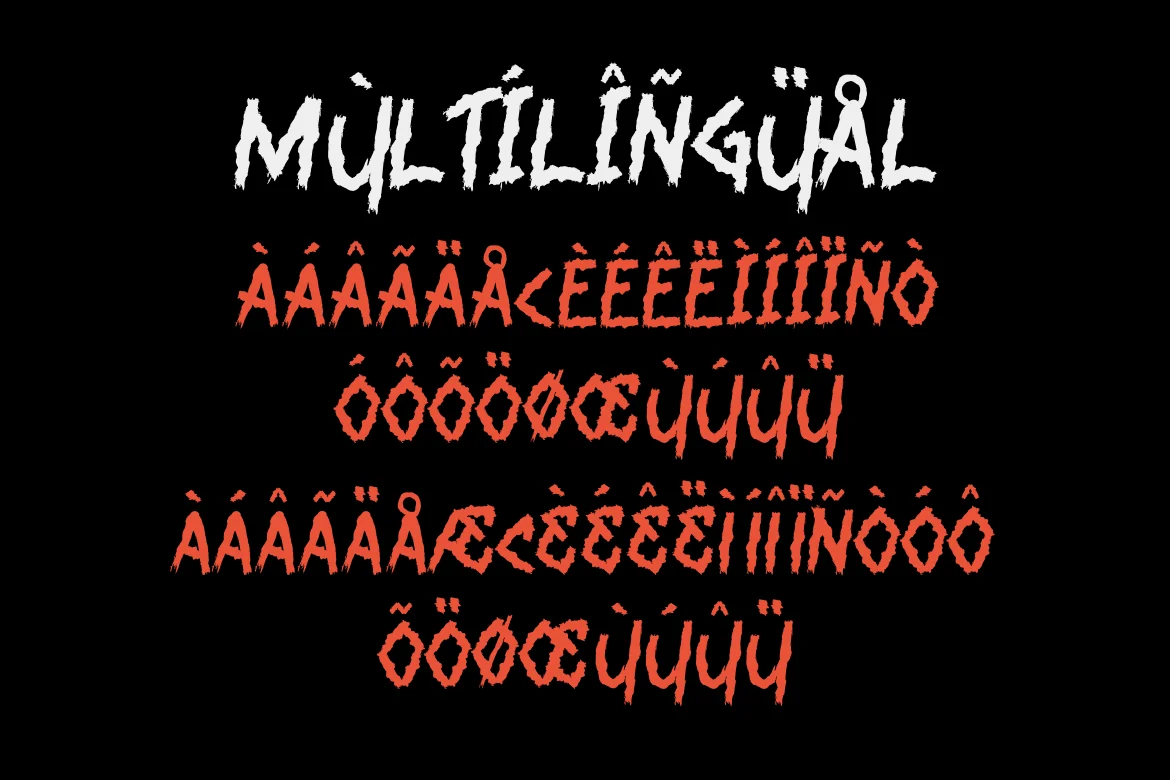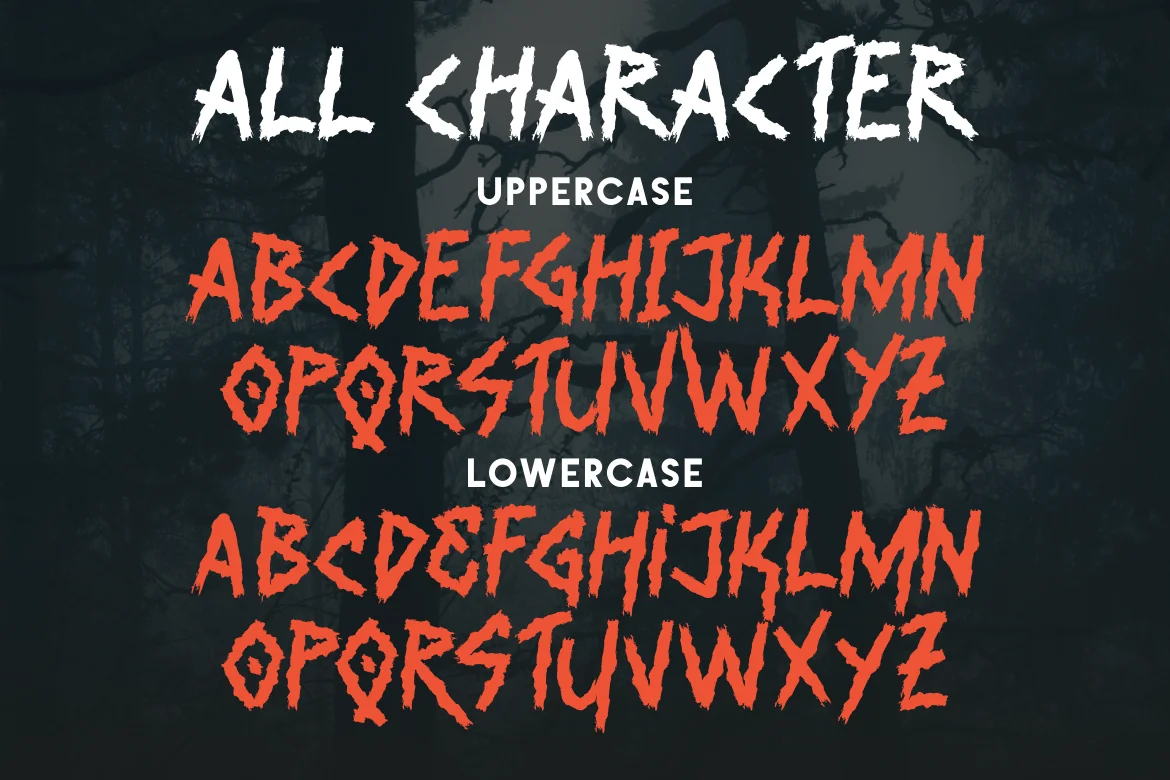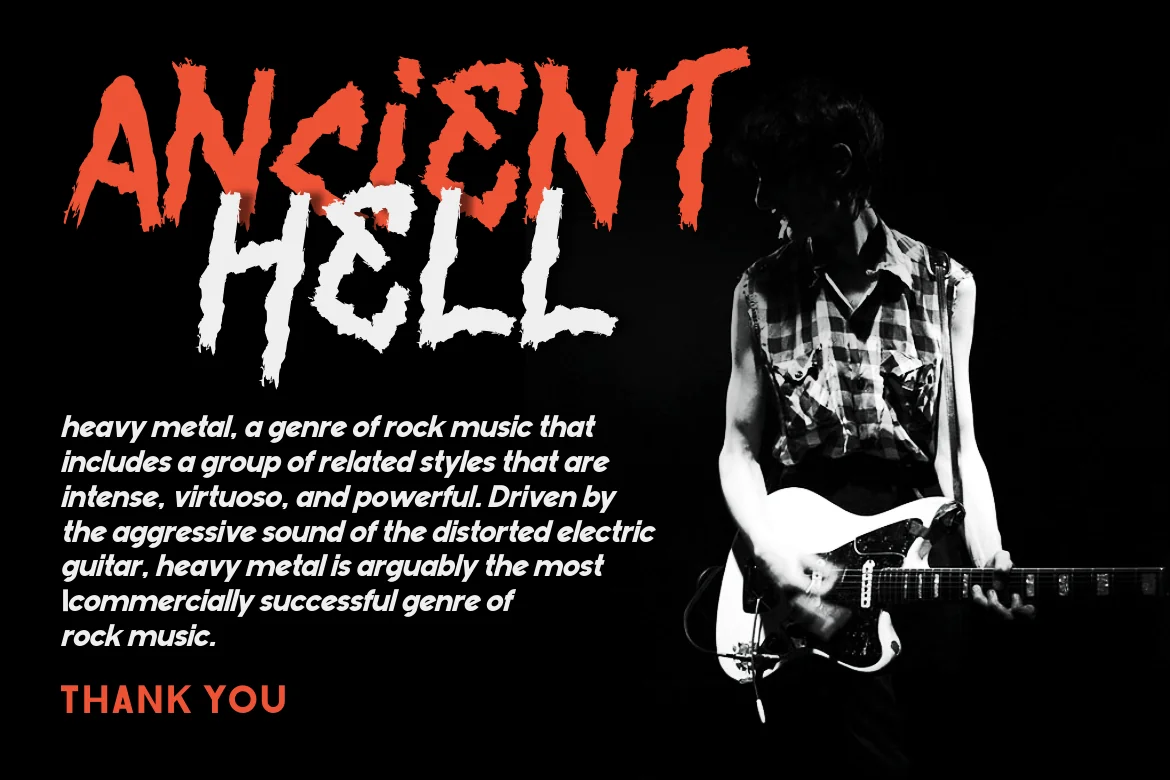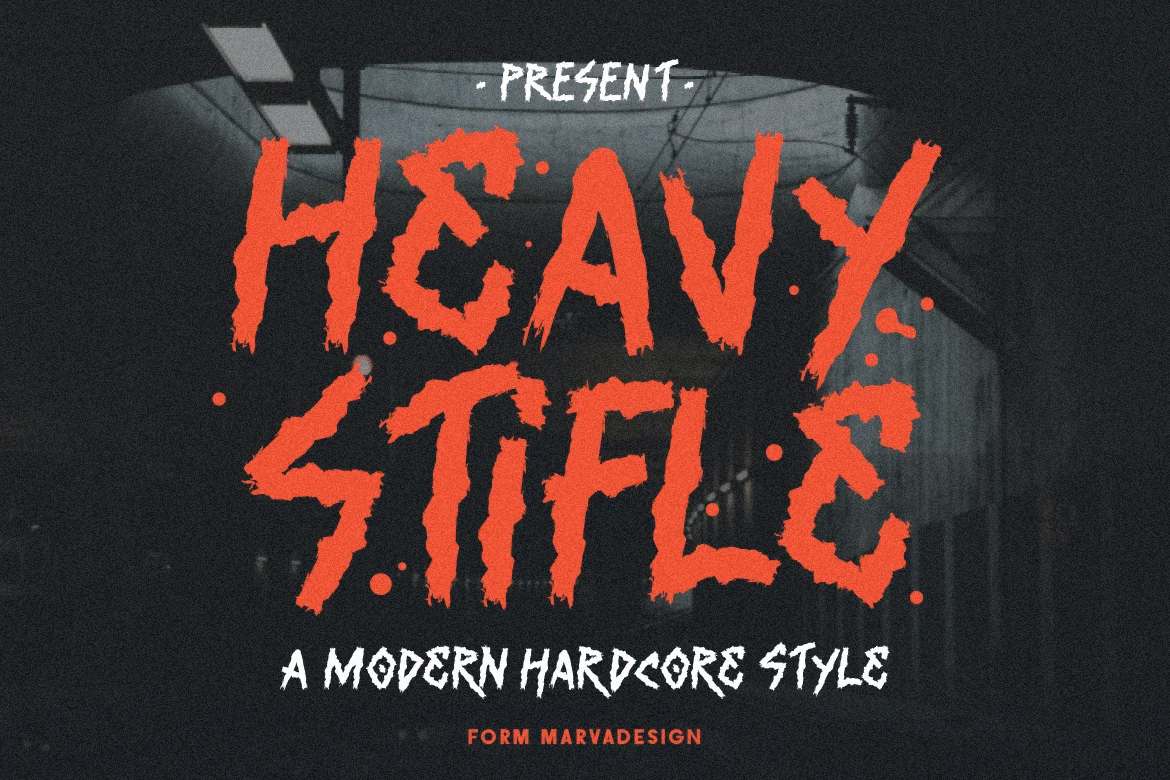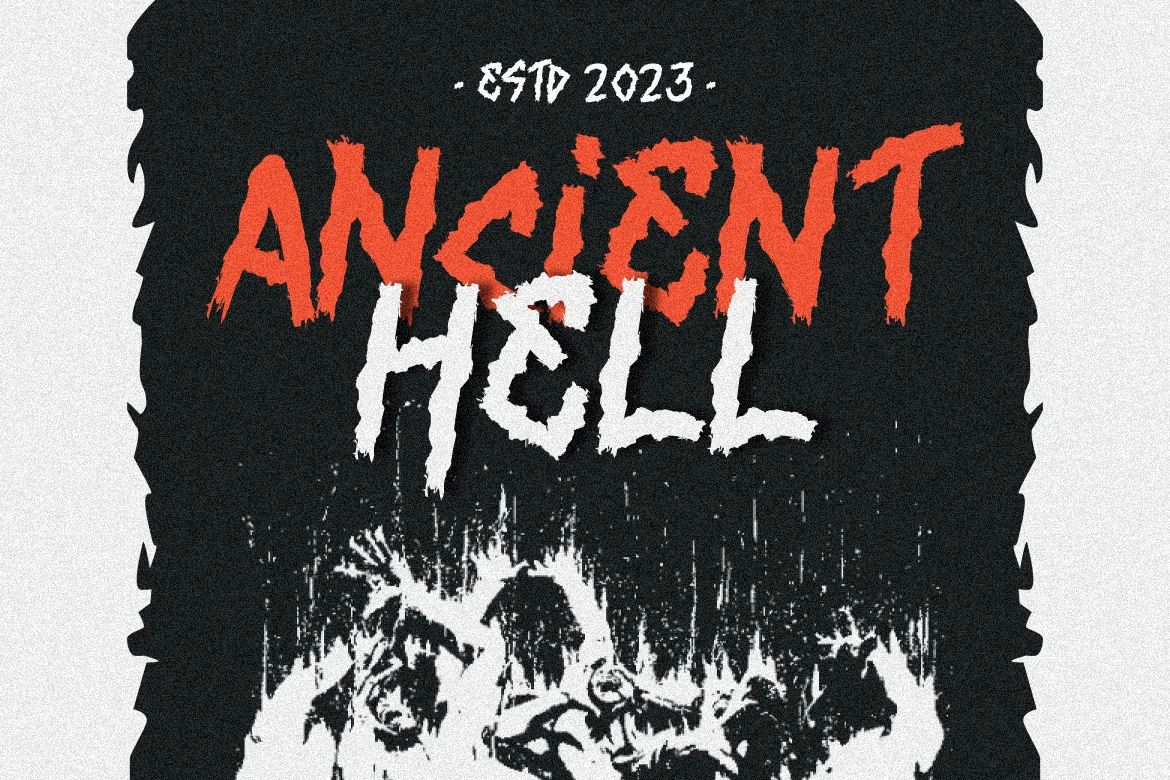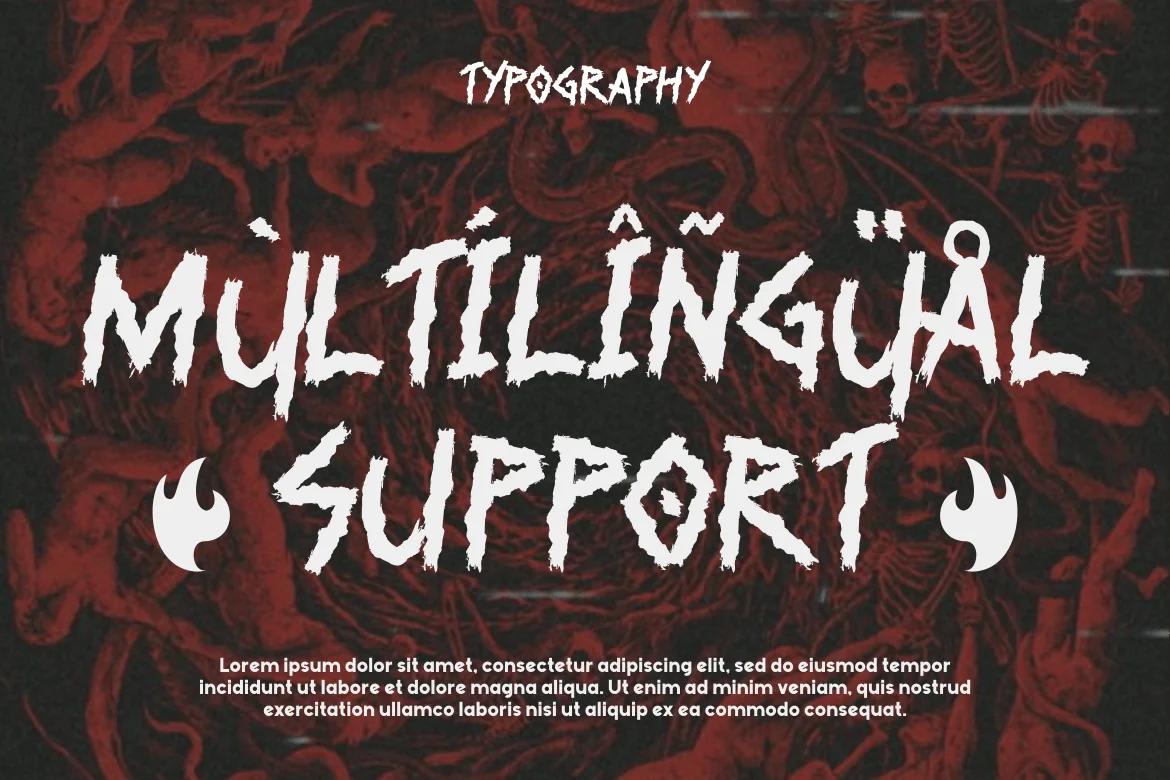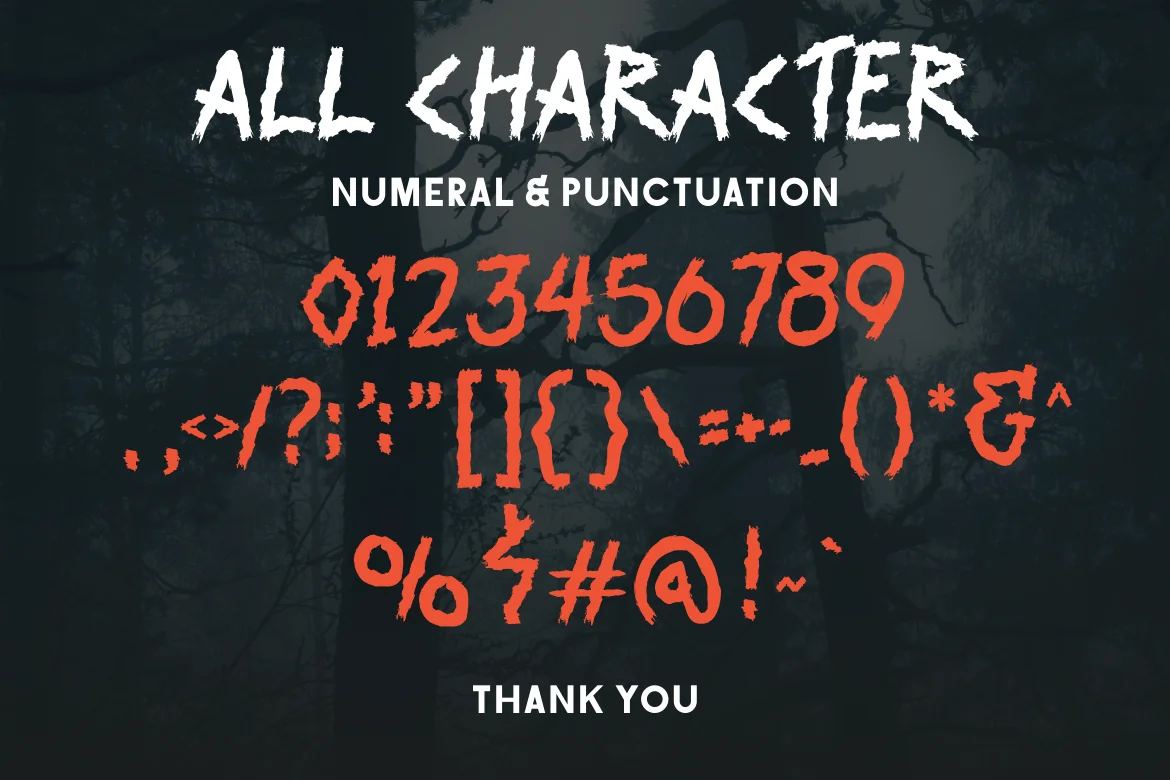
Heavy Stifle – A Modern Hardcore Font
Introducing our new product Ancient Hell Font – Modern Font
Ancient Hell Font** – Modern Font is a bold and authentic display font. The font is suitable for any branding project like logo, Template, Cover Album, Product and many more. outstanding in a wide range of contexts.